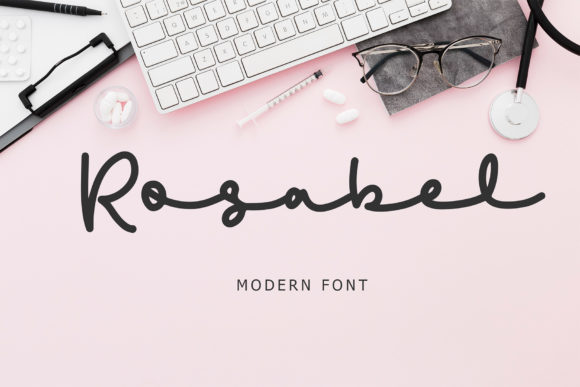
**Introducing Rosabel Font: The Epitome of Elegance and Originality**
In a world saturated with monotonous fonts, Rosabel emerges as a breath of fresh air, captivating hearts with its modern elegance and undeniable charm. This script font, meticulously crafted by formatikastd, transcends the boundaries of ordinary to unveil a realm of creative possibilities.
embark on a typographic journey like no other as you immerse yourself in the allure of Rosabel. Its meticulously designed characters dance across the screen, each stroke imbued with a timeless grace that echoes the finest handwritten signatures. Whether you're a seasoned designer seeking a font that elevates your creations or a novice eager to make a lasting impression, Rosabel is your ultimate companion.
**A Font That Speaks to Your Soul**
Rosabel possesses an innate ability to evoke emotions, stirring the depths of your soul with its enchanting beauty. Its curves flow with a fluid elegance, reminiscent of a gentle breeze caressing your skin on a warm summer day. Each letterform exudes a distinct personality, inviting you to explore the boundless realms of creativity.
With Rosabel as your font of choice, you can effortlessly craft designs that resonate with your audience, leaving an indelible mark on their minds. Logos, branding, invitations, and social media posts come alive with a touch of Rosabel, transforming mundane words into captivating works of art.
**The Perfect Font for Making Your Mark**
In a digital world where sameness often prevails, Rosabel empowers you to stand out from the crowd and make a statement that is uniquely yours. Its modern style, infused with a touch of classic charm, ensures that your designs will captivate and engage, leaving a lasting impression long after the final pixel fades away.
Whether you're a seasoned designer seeking a font that elevates your creations or a novice eager to make a lasting impression, Rosabel is your ultimate companion. Its versatility knows no bounds, adapting seamlessly to a myriad of projects, from elegant wedding invitations to eye-catching social media posts.
**Experience the Rosabel Difference**
Step into the world of Rosabel and unleash your творче�кие �по�обно�ти (creative abilities). This font is not merely a collection of letters; it is an invitation to embark on a journey of self-expression and originality. With Rosabel by your side, you can confidently create designs that reflect your unique vision, leaving an indelible mark on the world.
Don't settle for ordinary fonts that blend into the background. Embrace the beauty and versatility of Rosabel, and watch as your designs transform into captivating masterpieces that speak volumes.